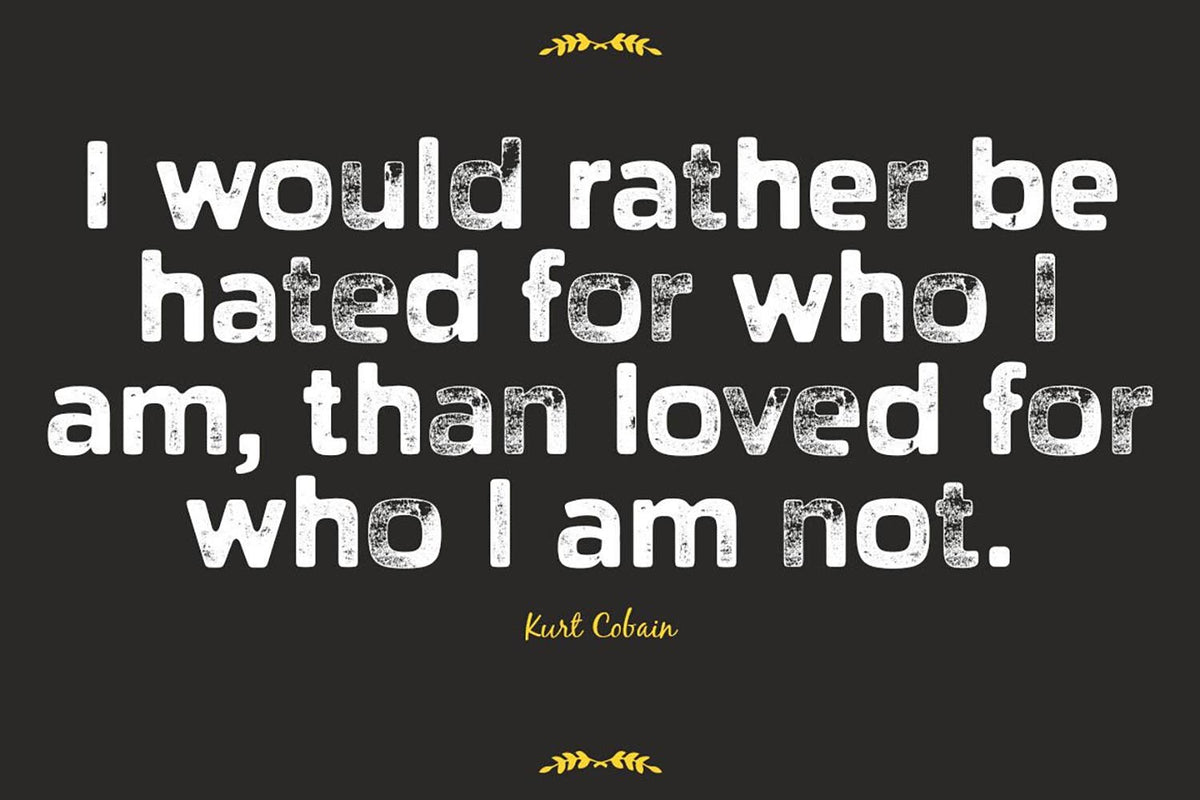
Dogtown Font is not clean, polished or particularly well behaved. Good. It was created for designers who understand that perfection is easy. Character takes a little more work.
Most fonts arrive looking untouched. Every edge is sharp. Every letter is identical. Every decision feels safe. Dogtown takes the opposite approach. Its surface is rough, its ink is uneven and its personality is impossible to tidy away. It looks printed because its textures began with real rolled ink—not a digital effect trying to impersonate one.
Perfect is forgettable
Old letterpress printing was never completely predictable. Ink gathered in some places and disappeared in others. Wooden letters wore down. Paper shifted. Each impression had its own small imperfections.
Those imperfections were not mistakes. They were evidence.
Dogtown brings that evidence back into your typography. It gives headlines, packaging and artwork the warmth of something made by hand. The result feels established rather than manufactured—like a poster discovered beneath several newer posters, still refusing to disappear.
Three textures. One unruly family.
The Dogtown Font family includes three individual textured styles:
- Dogtown 1—a lighter texture for restrained wear and subtle printed detail
- Dogtown 2—a medium texture with a stronger letterpress character
- Dogtown 3—a heavy texture for maximum grit, impact and imperfection
There is also a regular Dogtown font containing all three versions as contextual alternatives. Turn contextual alternates on in your design software and Dogtown automatically rotates between different glyphs as you type.
Repeated letters stop looking repeated. Words feel less mechanical. The typography begins to resemble natural printing rather than a line of duplicated digital shapes.
Repetition is the enemy
A distressed font can look convincing until the same letter appears twice. Then the trick is exposed. The identical scratches, gaps and ink marks reveal that it came from a keyboard rather than a print shop.
Dogtown solves that problem with variation. You can let its contextual alternatives do the work, choose individual characters through the glyphs panel, or select one of the three separate font styles. You control how consistent—or gloriously inconsistent—the finished design becomes.
Where Dogtown works
Dogtown is a display font, so it likes being seen. Give it space, scale and something worth saying. It is particularly effective for:
- Posters and gig artwork
- Album covers and music graphics
- Packaging and product labels
- Book and magazine covers
- Editorial headlines
- T-shirts and merchandise
- Logos and expressive branding
- Social-media campaign graphics
It can suggest vintage workwear, independent record shops, skate culture, small-batch packaging or old advertising without becoming a polite piece of nostalgia. Dogtown has history, but it also has enough attitude to work in contemporary design.
Good design leaves fingerprints
The safest typeface is rarely the one people remember. Dogtown does not whisper from the corner or apologise for taking up space. It arrives already worn in, carrying the marks that cleaner fonts spend their lives trying to avoid.
Your idea does not need another perfect font. It needs one with a past.